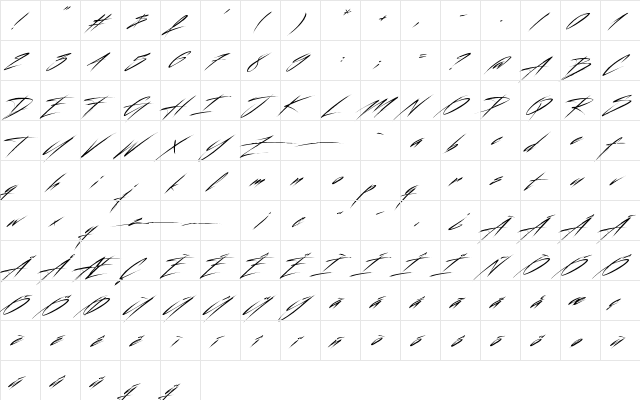
Beastform Regular
Design Context for Beastform Typeface
Beastform is a composed and adaptable typeface that performs quietly and consistently across a wide range of design contexts.